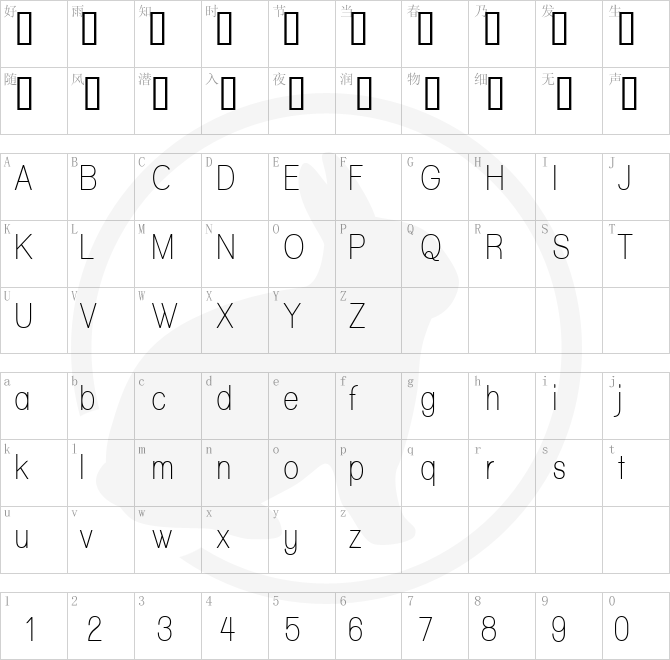
- Font Name:Walkway Condensed SemiBold
Walkway-Condensed-SemiBold-copy-1-.ttf is a very beautiful artistic font, Walkway-Condensed-SemiBold-copy-1-.ttf is widely used in the design and printing of various books and pictures,Walkway-Condensed-SemiBold-copy-1-.ttf has a strong visual impact,Walkway-Condensed-SemiBold-copy-1-.ttf is a commonly used font in newspapers, magazines and books, and is used in posters, e-commerce Poster design, store design, logo design, font design and other fields.Walkway-Condensed-SemiBold-copy-1-.